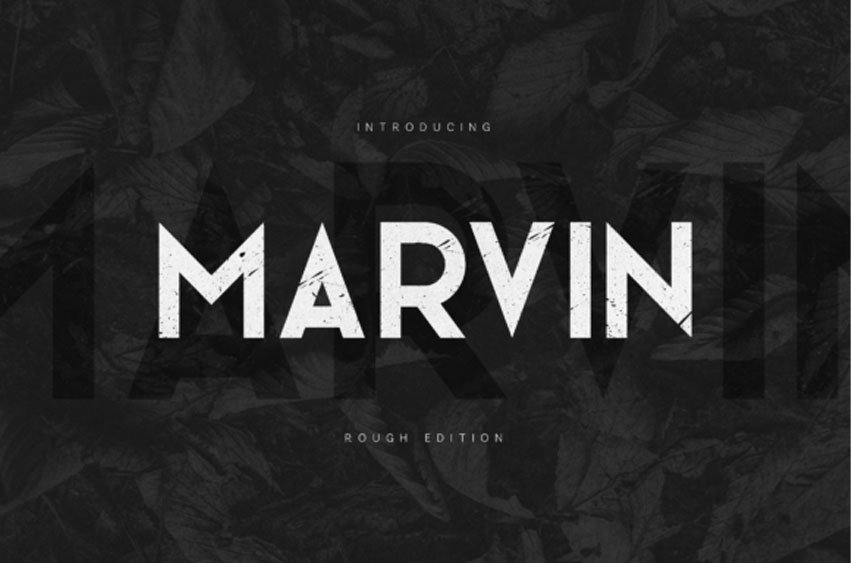
Marvin Rough Font Inject your designs with a dose of unrefined energy with Marvin Rough Edition, a bold sans-serif display font built for maximum impact.
Ideal for true-crime book covers, high-stakes movie titles, and event flyers. Whether you’re crafting a brand for a rugged outdoor company or designing a high-drama cinematic poster, Marvin Rough Edition delivers a professional, heavy-duty aesthetic that commands respect.